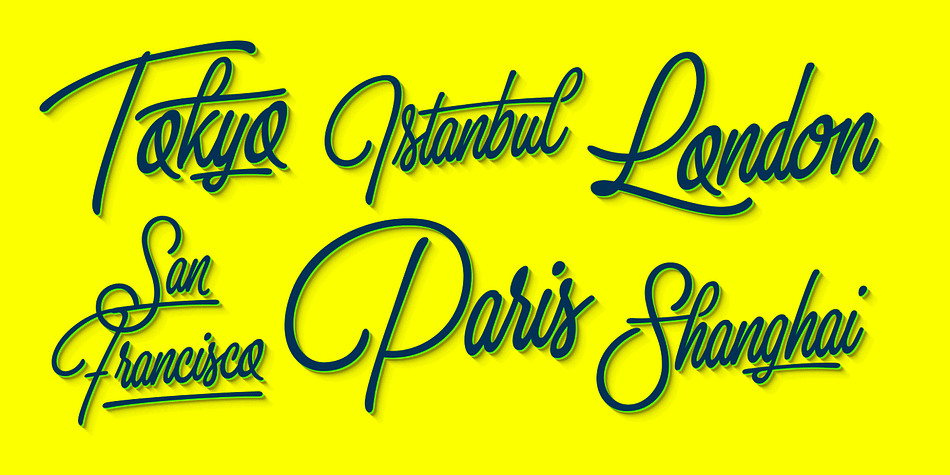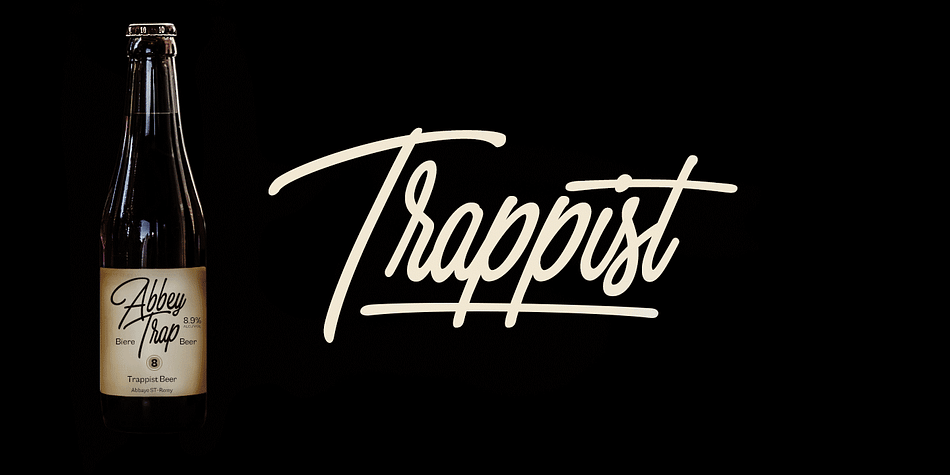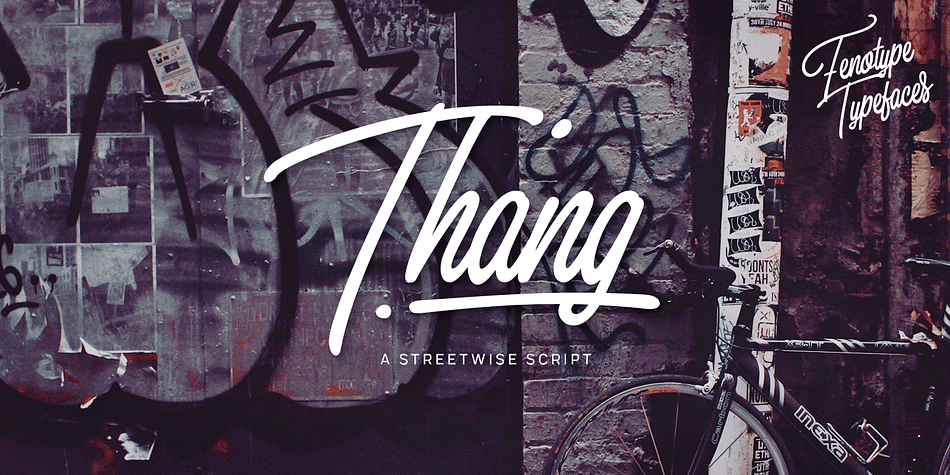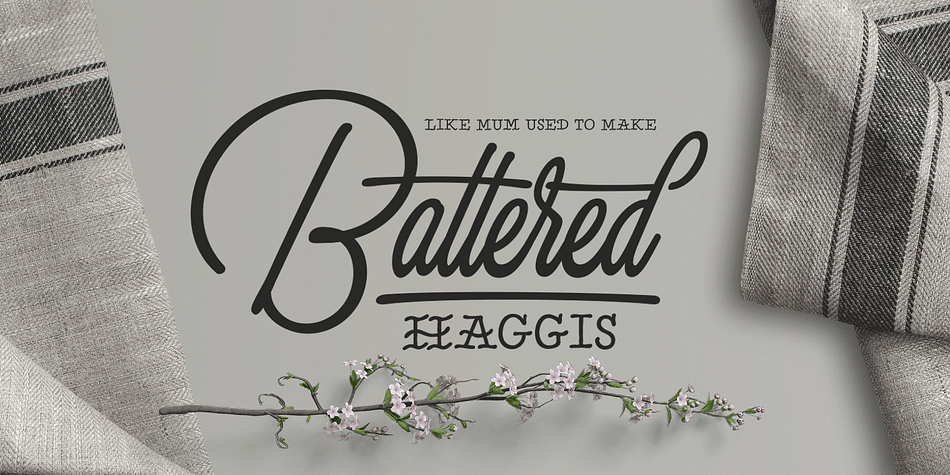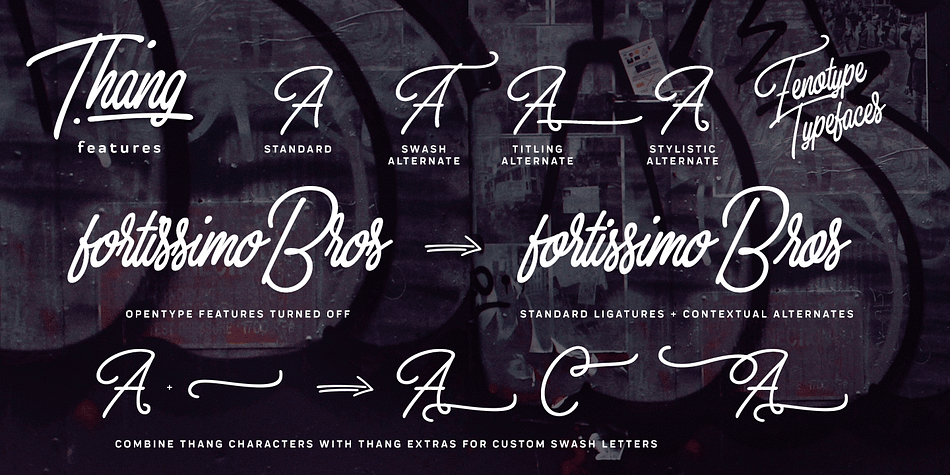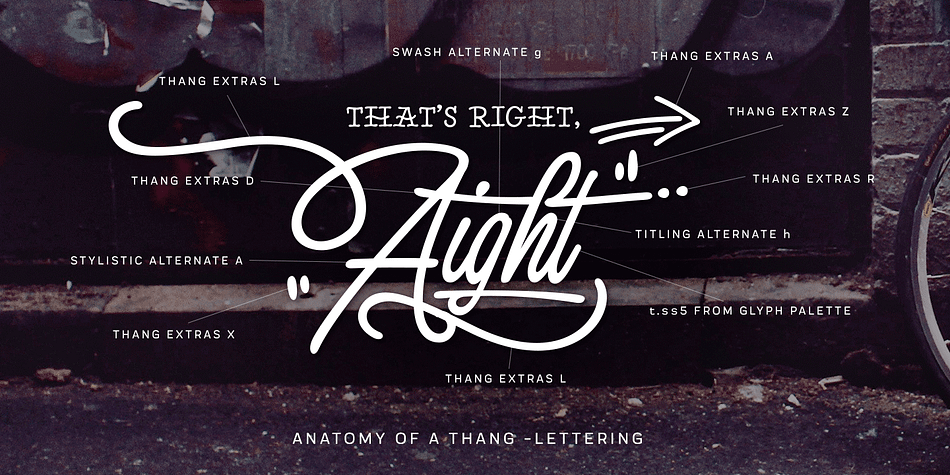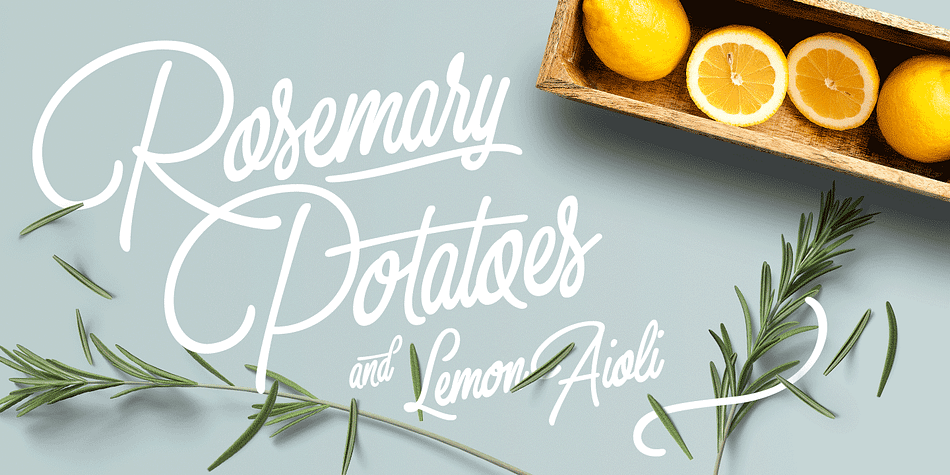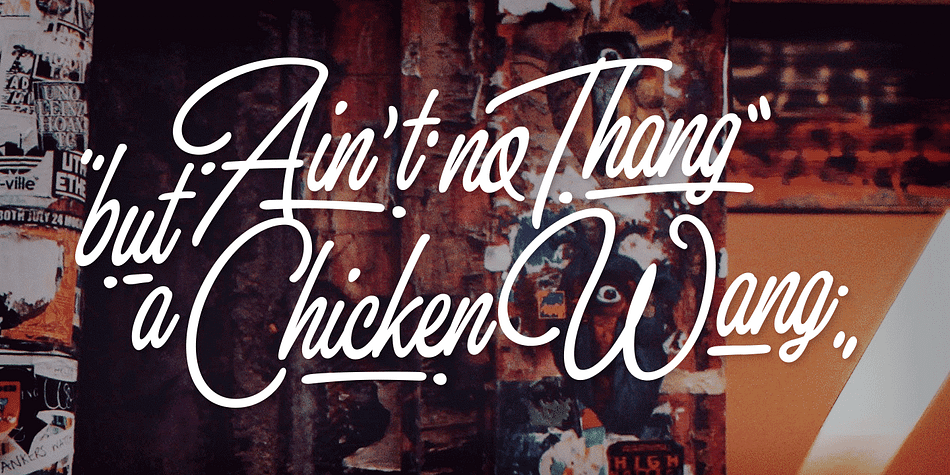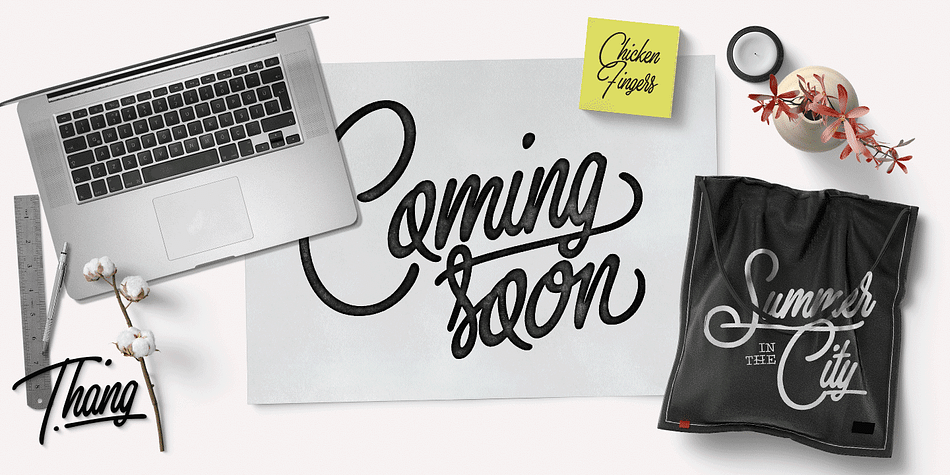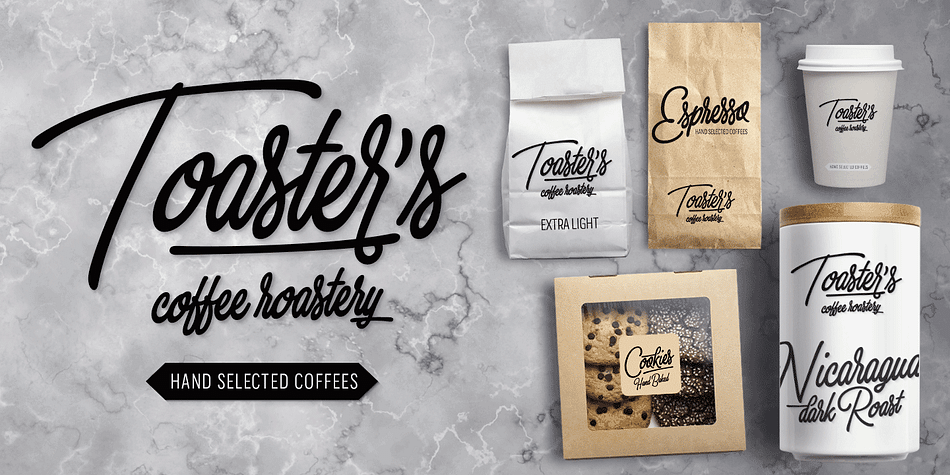
Thang is a dingbat and script font family. This typeface has four styles and was published by Fenotype.
Aint’ nuthin but the Thang.
Thang is a street cred script family with big initial caps and tight flow. Thang is great for flashy headlines or as a logotype. Thang family comes with three weights. Thang Extras is a pack of strokes and dots that can be used to decorate your texts typed with Thang. Thang Extras can also be combined with Thang letters for custom Swash.
Thang is packed with several OpenType features: keep on Standard Ligatures and Contextual Alternates for smooth flow. Try Swash, Stylistic or Titling Alternates for alternate characters to create customised lettering works. Check out Glyph Palette for even more alternate characters and go wild the Thang.